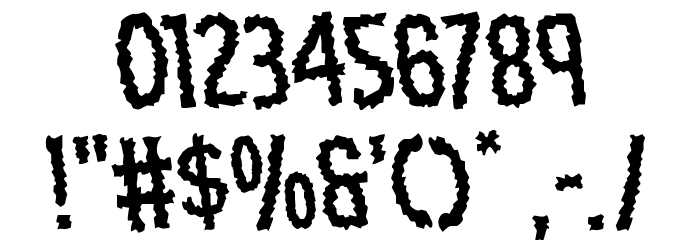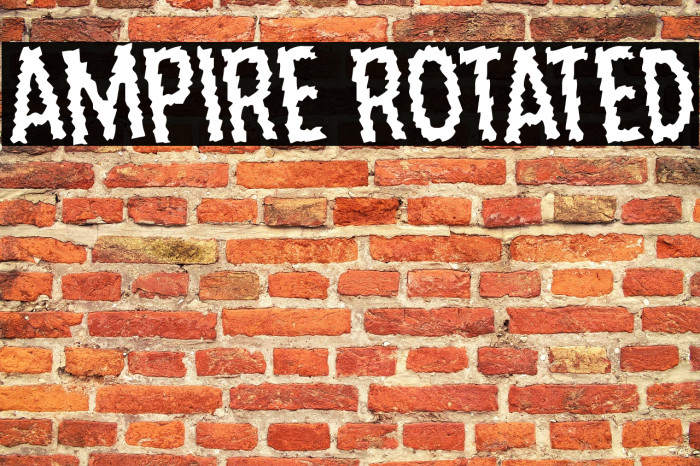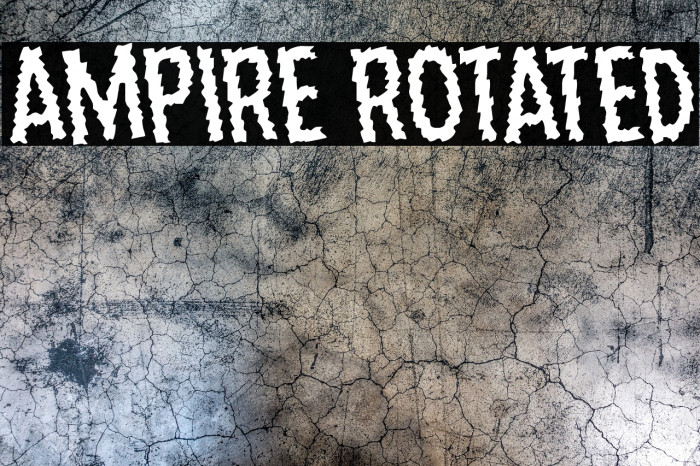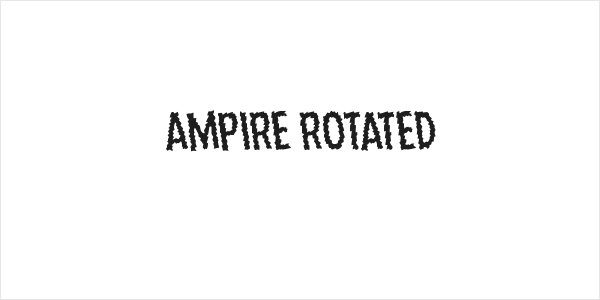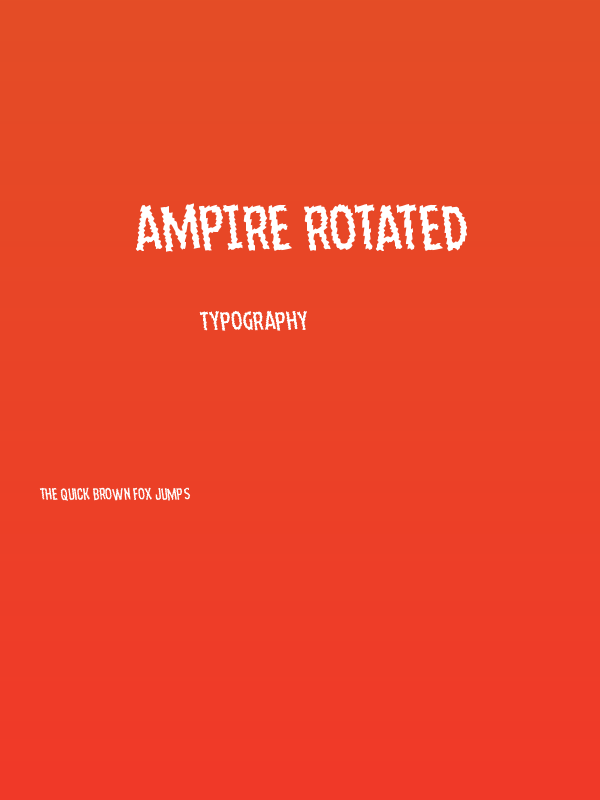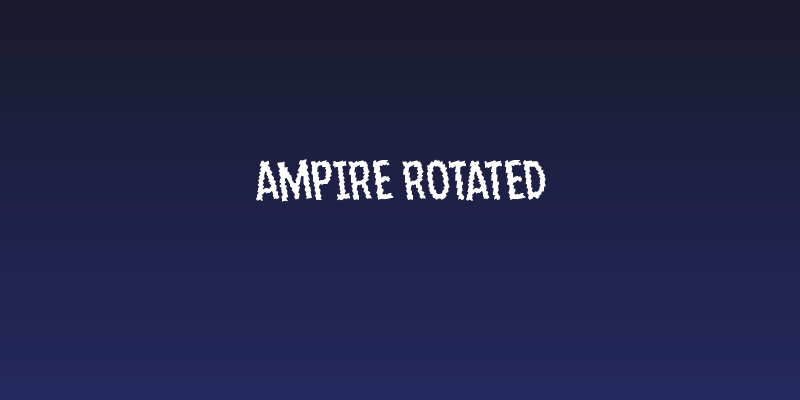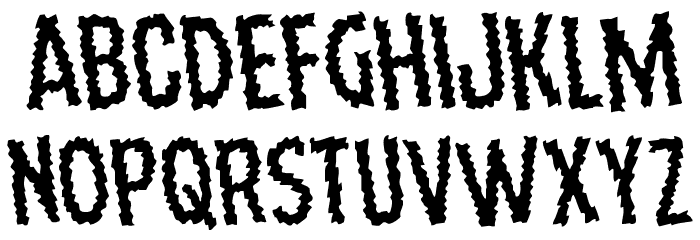
Ampire Rotated Font
Ampire Rotated Description
This font features a jagged, edgy design that gives it a dynamic and energetic appearance. The characters are bold and have a rough, textured edge, reminiscent of torn paper or a saw blade. This style creates a sense of movement and intensity, making it stand out in any design. The uppercase and lowercase letters maintain a consistent style, with numbers and special characters following the same aesthetic. The font's unique appearance makes it ideal for projects that require a bold statement or a touch of rebellious flair.
| Proposed Projects | Ideal for music album covers, event posters, edgy branding, and any project needing a bold, rebellious touch. |